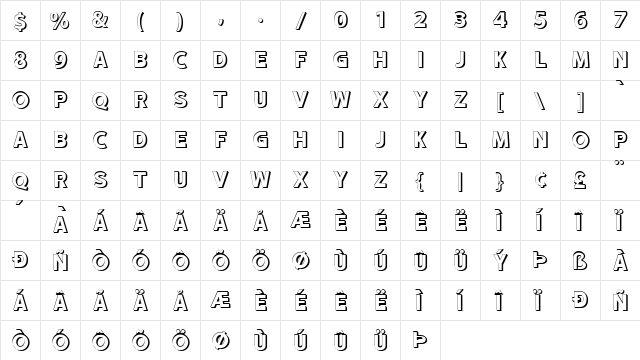
hustle 2 Regular
Design Context for hustle 2 Typeface
hustle 2 is a composed and adaptable typeface that performs quietly and consistently across a wide range of design contexts.